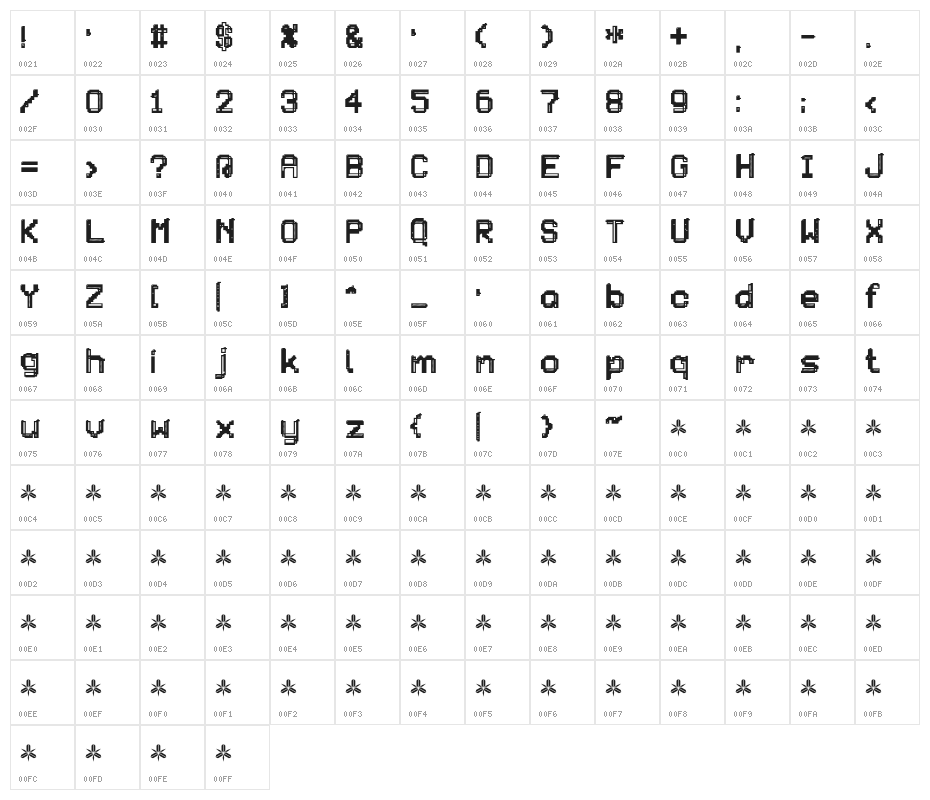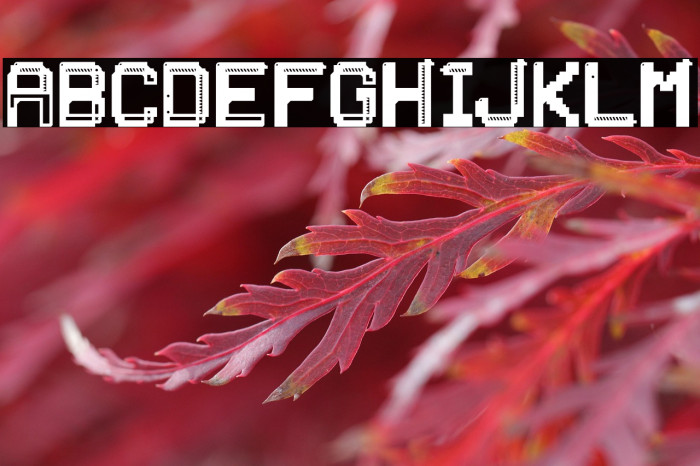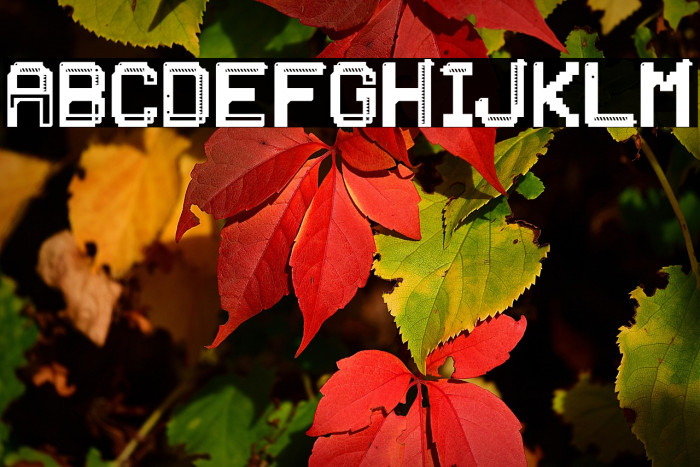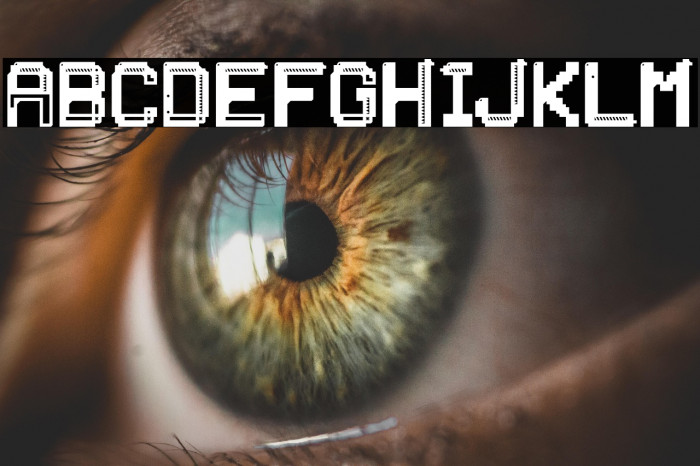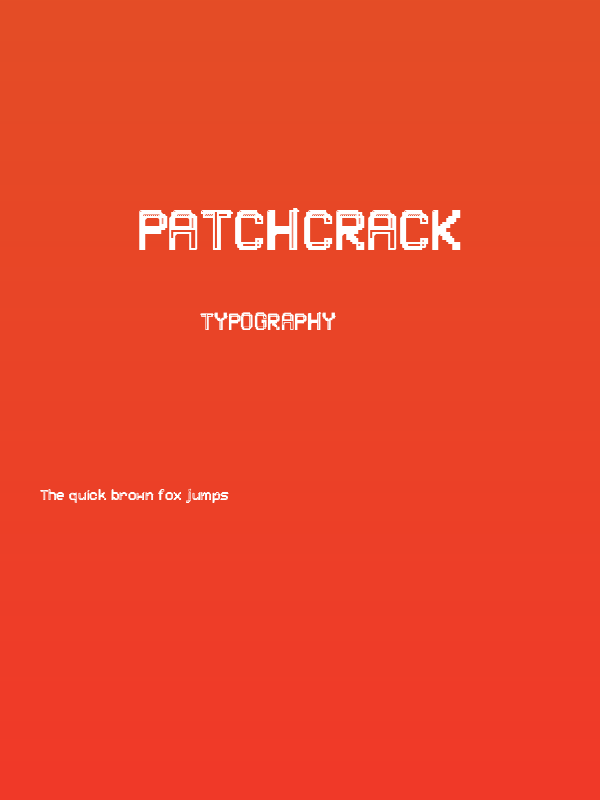
PATCHCRACK Font
PATCHCRACK Description
This font features a bold, blocky design with a distinct pixelated appearance, reminiscent of early digital or arcade-style typography. Each character is outlined with a thick border, giving it a three-dimensional effect. The design incorporates a mix of solid and dotted lines, adding a textured, retro aesthetic. The uppercase and lowercase letters maintain a consistent style, with a uniform height and width that enhances readability. Numbers and special characters follow the same design principles, ensuring a cohesive look across all glyphs. This font is ideal for projects that aim to evoke nostalgia or a vintage digital feel.
| Overall Style | Vintage |
| Use Case | Logos, Headlines, Posters |
| Proposed Projects | Perfect for video game graphics, retro-themed posters, digital art, and branding that requires a vintage digital touch. |